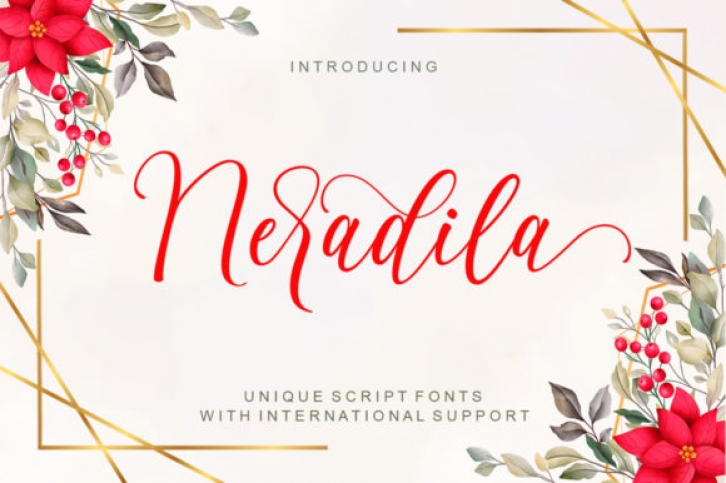
Neradila is an elegant and flowing handwritten font. It is PUA encoded, which means that you can access all of the glyphs and swashes with ease! It features a varying baseline, smooth lines, gorgeous glyphs and stunning alternates. Fall in love with its incredibly versatile style and use it to create spectacular designs!